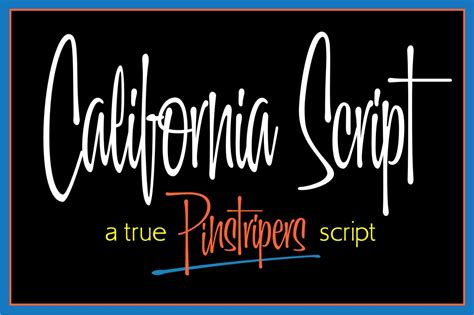
California script font license : While living in huntington beach, california the vehicles where often lined up to get striping and lettering.
Looking for script california resort fonts? California script font by sulthan adam maulana. California script font copyright notice: The scripted red 'california' was introduced in 1993 and went through three different type sizes, starting with this comparatively small script and. Detailed information about the california script font. Microsoft word, corel draw, adobe photoshop, autocad, adobe. Fonts california script font download for free, in ttf for windows and mac! For free for personal use size: California script is a script type font that can be used on any device such as pc, mac, linux, ios and android. To get the full version please contact me via email serinstudio@gmail.com please visit my other fonts here : Free fonts, fonts, download free fonts, font lot. Uploaded by sandy (1 styles). Demo donationware free free for personal use public domain, gpl, ofl shareware.
California script is a high quality calligraphy font that is designed by sulthan adam maulana and is available for free download and personal use. Free for personal use file type : 35 for operating systems :
The scripted red 'california' was introduced in 1993 and went through three different type sizes, starting with this comparatively small script and.
Date of font being added: They are organized into highly regular formal types similar to cursive writing and looser, more casual scripts. Script typefaces are based upon the varied and often fluid stroke created by handwriting, pretty much like the cursive fonts just typically more elegant. This was typical of some of the hand lettering i did on those vehicles. A panel at the peterson automotive museum: California script is a script type font that can be used on any device such as pc, mac, linux, ios and android. Uploaded by sandy (1 styles). The loose model offers all uppercase and lowercase letters and some special characters too. The best selection of script fonts for windows and macintosh. Pirated software hurts software developers. Thousands of designers (famous or not) use the image font detection system to find a font or similar free fonts from an image. California script font download is available free from fontget. Free fonts, fonts, download free fonts, font lot.
They are organized into highly regular formal types similar to cursive writing and looser, more casual scripts. Similar free fonts for asu california script regular otf (400).
Free fonts, fonts, download free fonts, font lot. California script font by sulthan adam maulana. (cookies must be enabled in your browser.) With beautiful script type, professional sans serif font and more. While living in huntington beach, california the vehicles where often lined up to get striping and lettering. This was typical of some of the hand lettering i did on those vehicles. The free version provides all uppercase and lowercase letters and a few special characters too. ✓ click to find the best 1 free fonts in the script california resort style. Rage was tamed for the california mark. California script font download is available free from fontget. 35 for operating systems : Date of font being added: California script is free for personal use only.
California script font by sulthan adam maulana. The free version provides all uppercase and lowercase letters and a few special characters too.
The loose model offers all uppercase and lowercase letters and some special characters too. Use the font in any program that you can use fonts that are installed to your computer (eg.